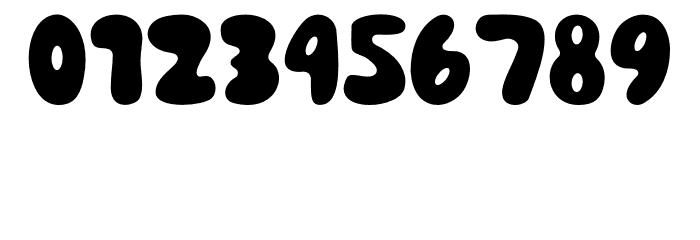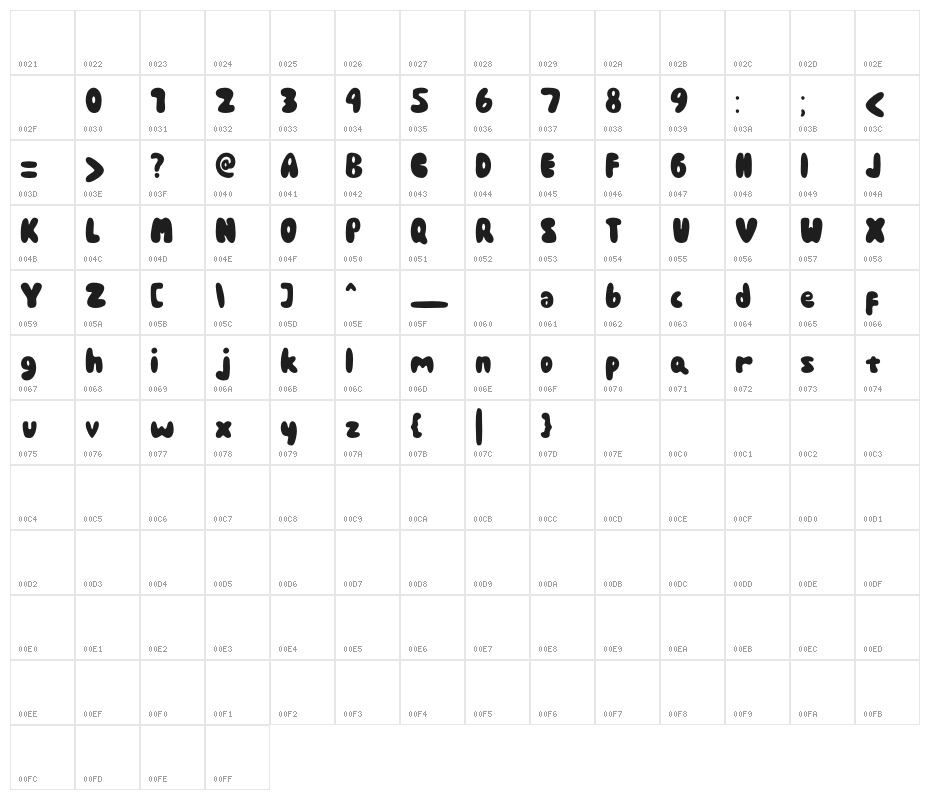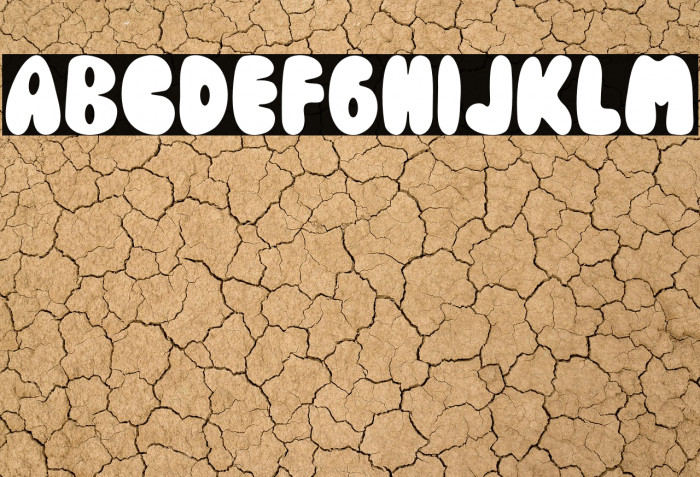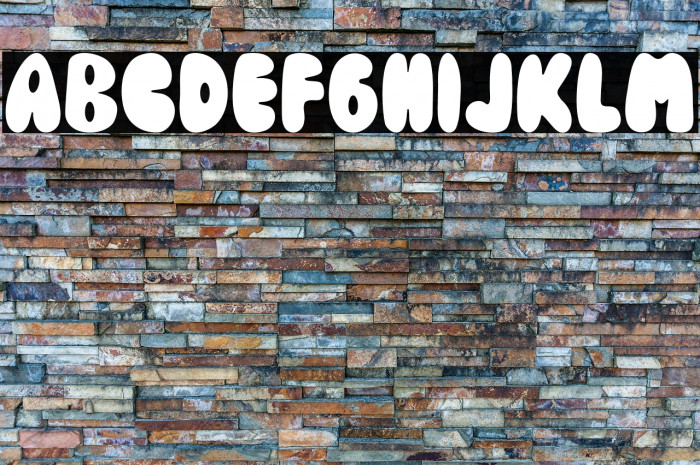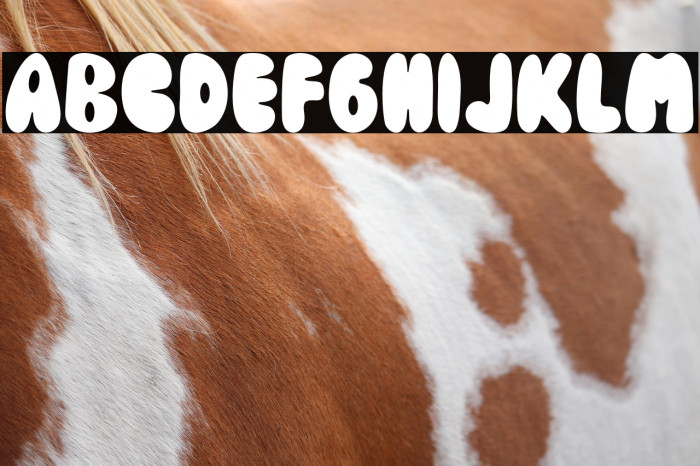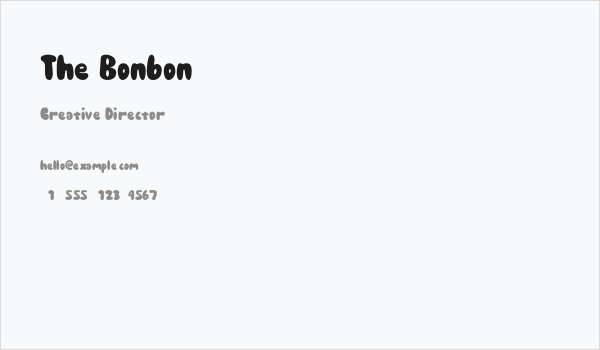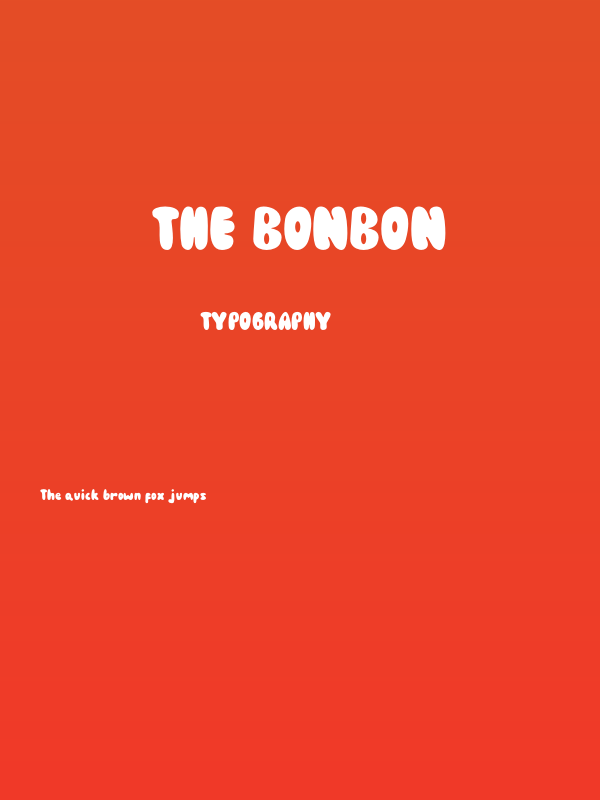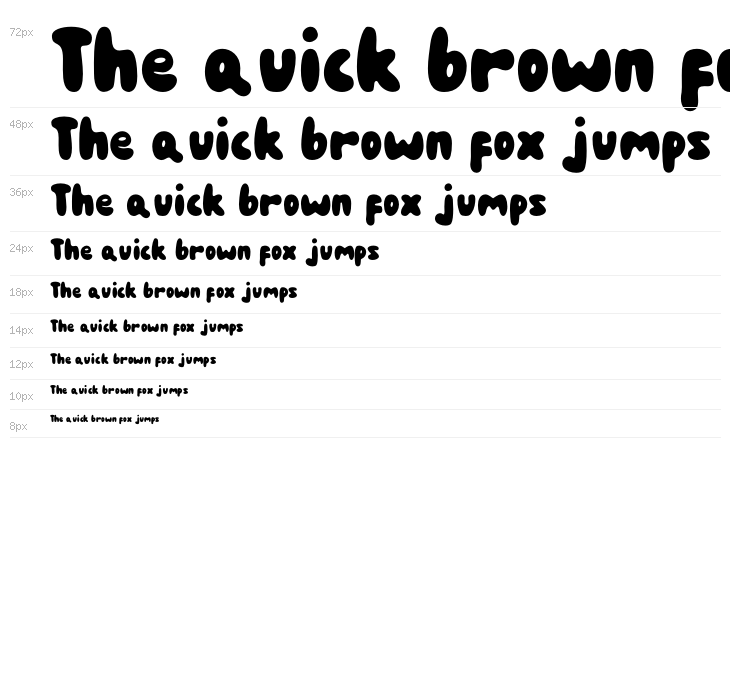
The Bonbon Font
The Bonbon Description
This playful and bold font features rounded, bubbly characters that exude a sense of fun and whimsy. The letters are thick and substantial, with a uniform stroke width that gives them a cohesive appearance. The overall design is reminiscent of playful, cartoon-like lettering, making it ideal for projects that require a lighthearted and approachable aesthetic. The font's rounded edges and consistent weight contribute to its friendly and inviting look, making it suitable for children's books, party invitations, or any design that aims to convey joy and creativity.
| Proposed Projects | Children's books, party invitations, playful branding, cartoon titles, and creative posters. |